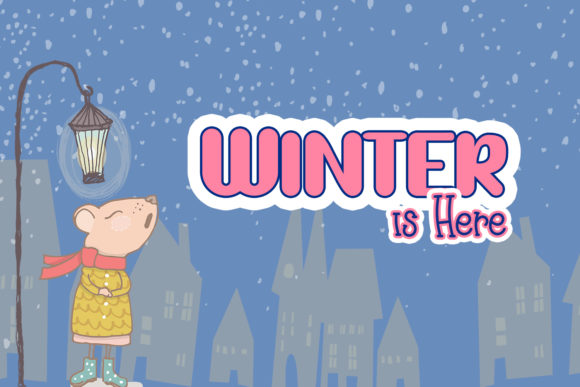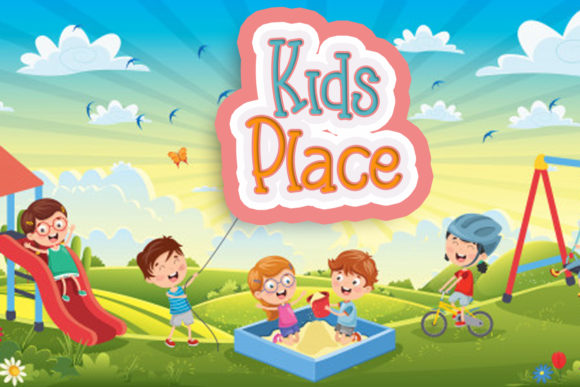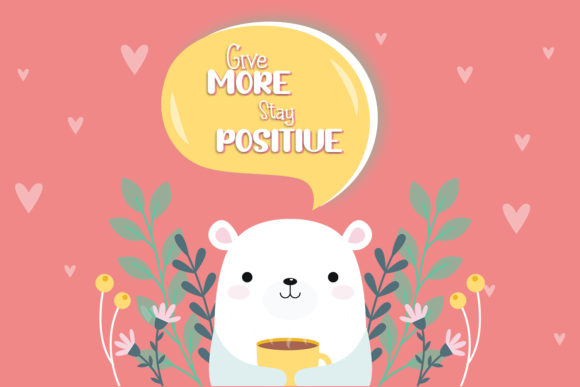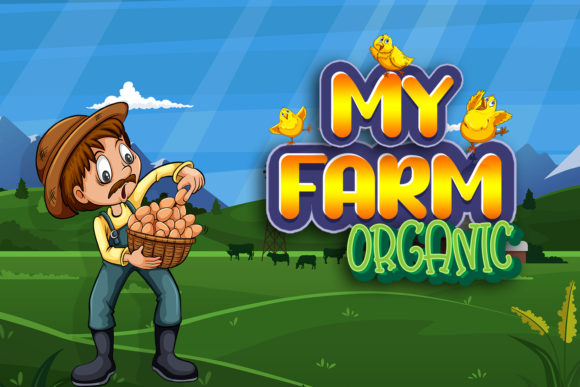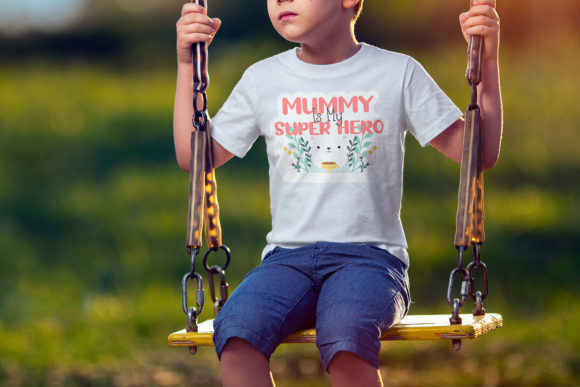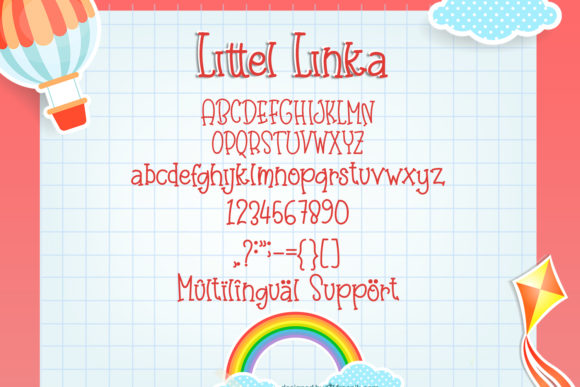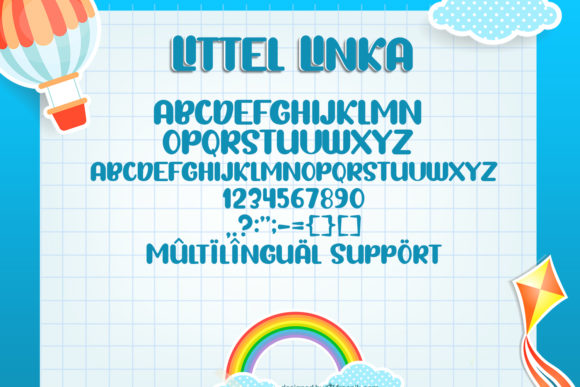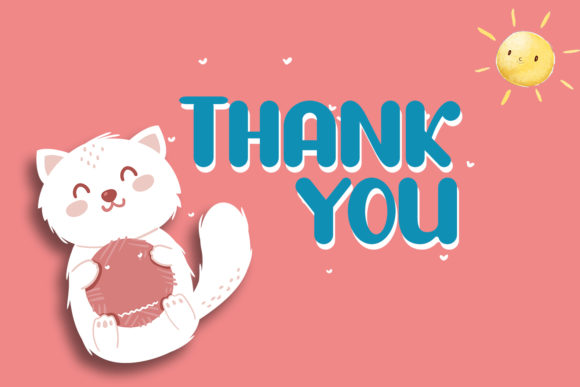
Little Linka Font
About Little Linka Font
Little Linnka is a fun and child-themed handwritten font full of life. It will add a friendly and quirky feel to any design! Get creative with its childlike playfulness, and use it to brighten up any kids and school project!